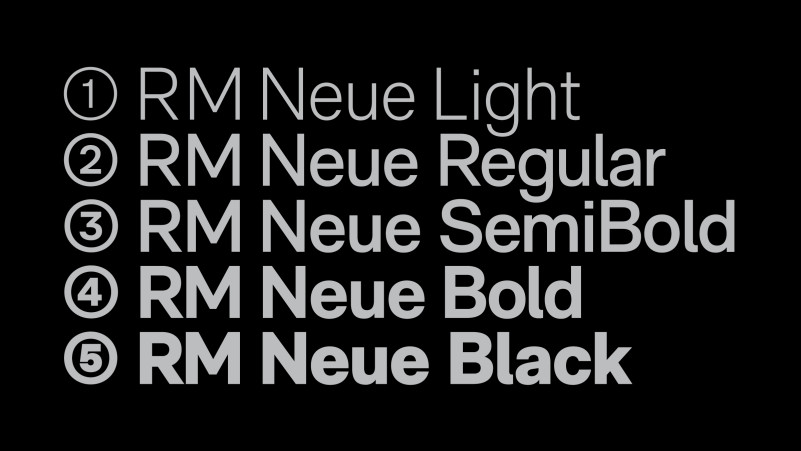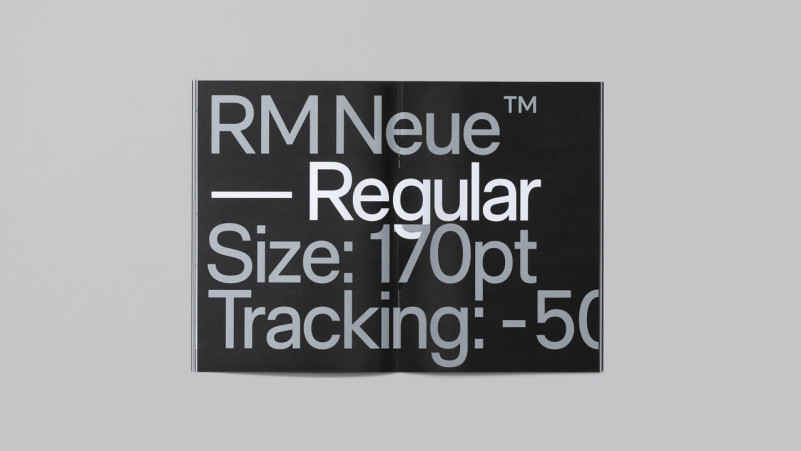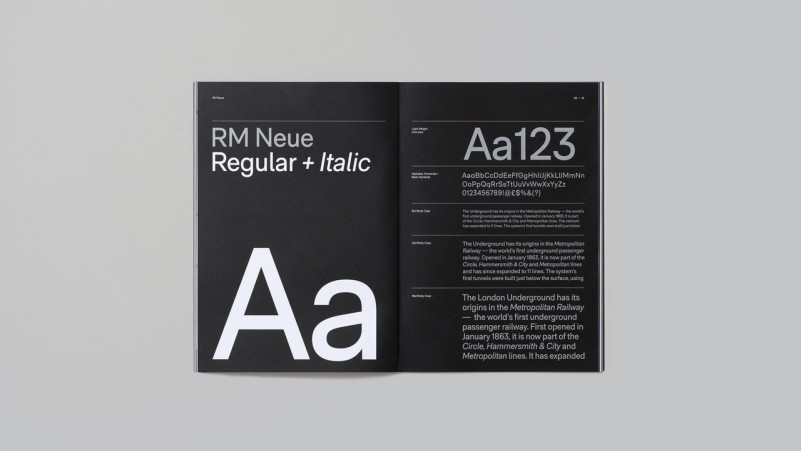
RM Neue Font
How outstanding! RM Neue Sans Serif Font Family. The first iteration of RM was released in 2011, followed by RM Pro in 2016. RM Neue is a completely redrawn and redesigned adaptation of RM Pro, previously available in only three weights. Inspired by utilitarian neo-grotesques, RM Neue aims to be a timeless addition to each designer’s font repertoire and has been designed to be clean and legible at all sizes. RM Neue features compact proportions and a low-contrast design, which make it feel immediately familiar, yet not as sterile as would be expected for such a grotesque design. The ascenders in RM Neue have the same height as the caps. For this reason, the default “l” features a curly serif, which helps set it apart from the capital “I”.
RM Neue is available in 5 weights: Light, Regular, SemiBold, Bold and Black, each with matching oblique italics. The character set spans the Latin Extended unicode range, covering most languages written with the Latin script.
The Regular weight is slightly heavier than other grotesque families, which gives RM Neue more impact at larger text sizes (12–16 points) as often used on modern, minimal websites and in zines.
Via the OpenType features, the user can access an alternate single-storey ‘a’ and simple ‘l’, without a serif.
Visually striking at display sizes and highly legible as a text face, RM Neue is both distinctive and functional, making it the perfect choice for professionals seeking a versatile sans-serif for a range of design environments.